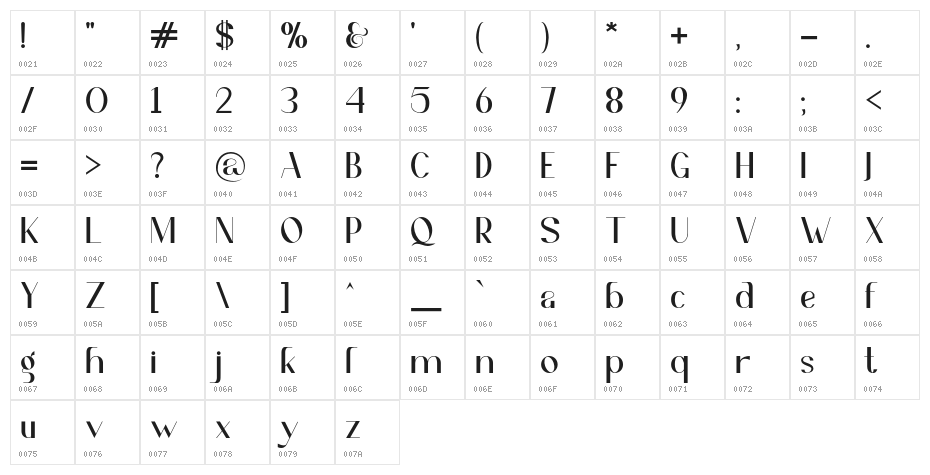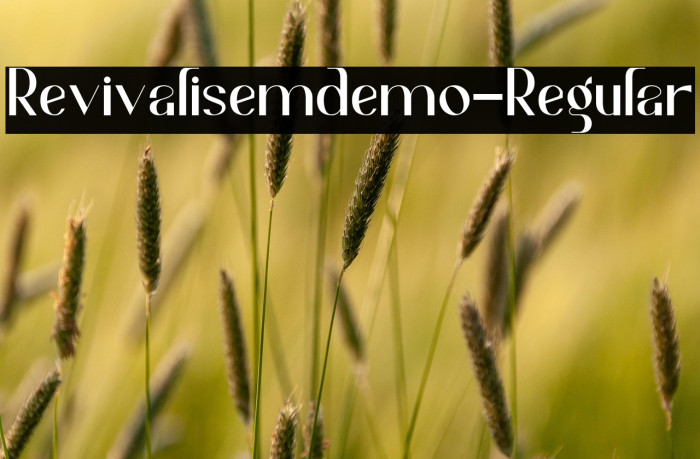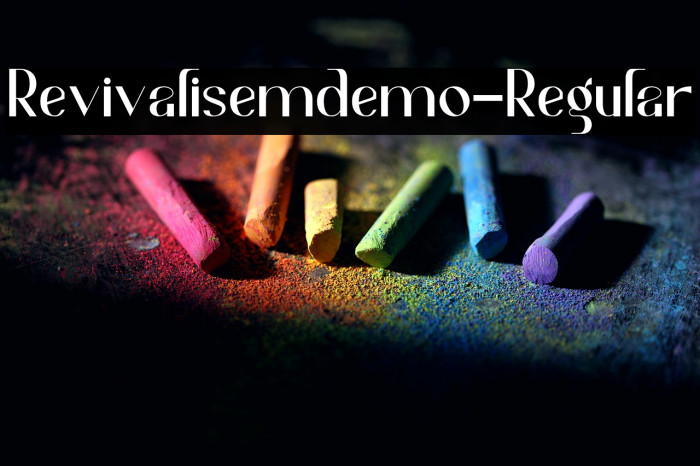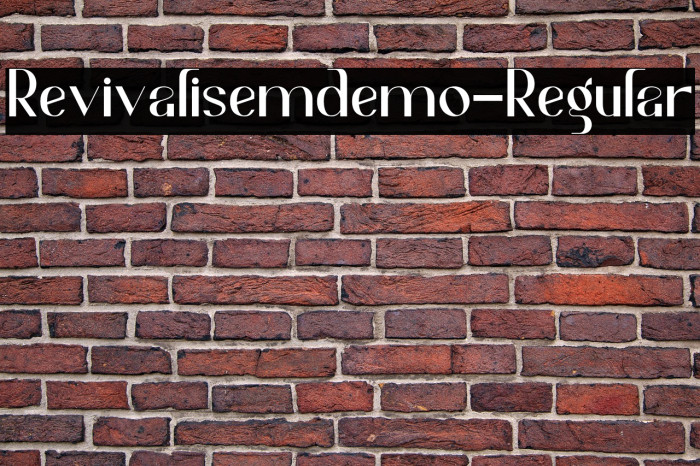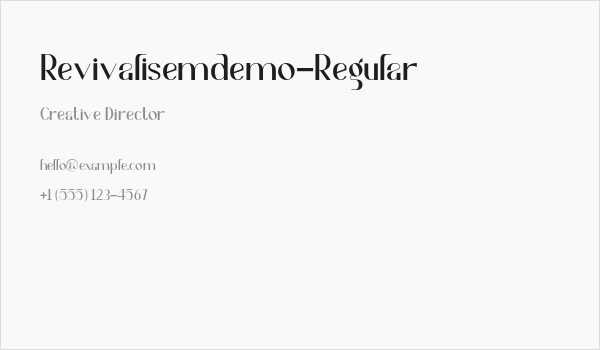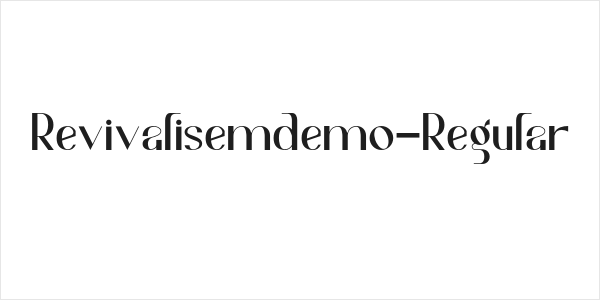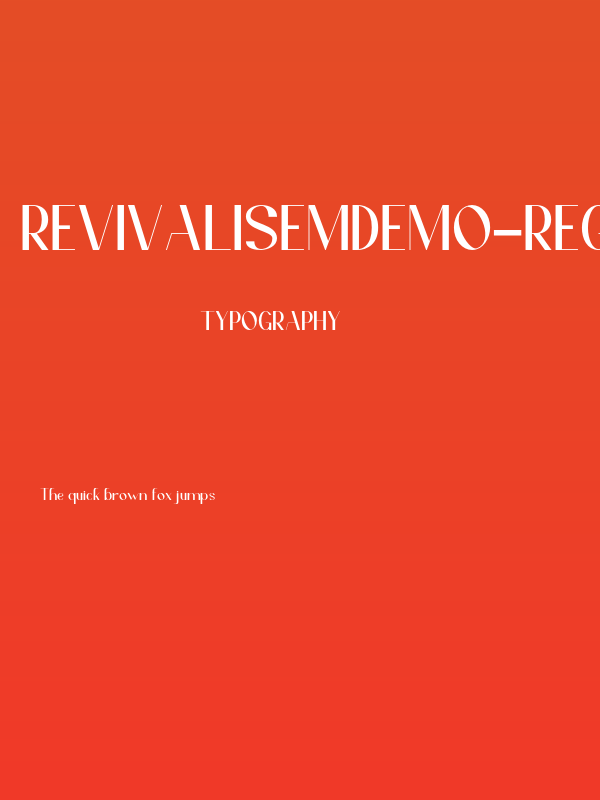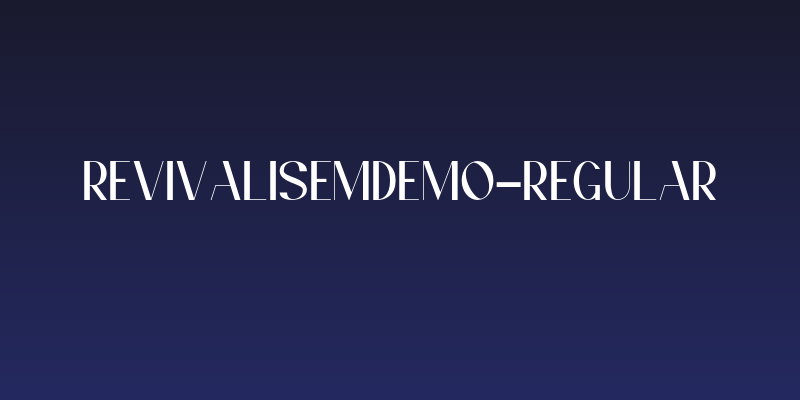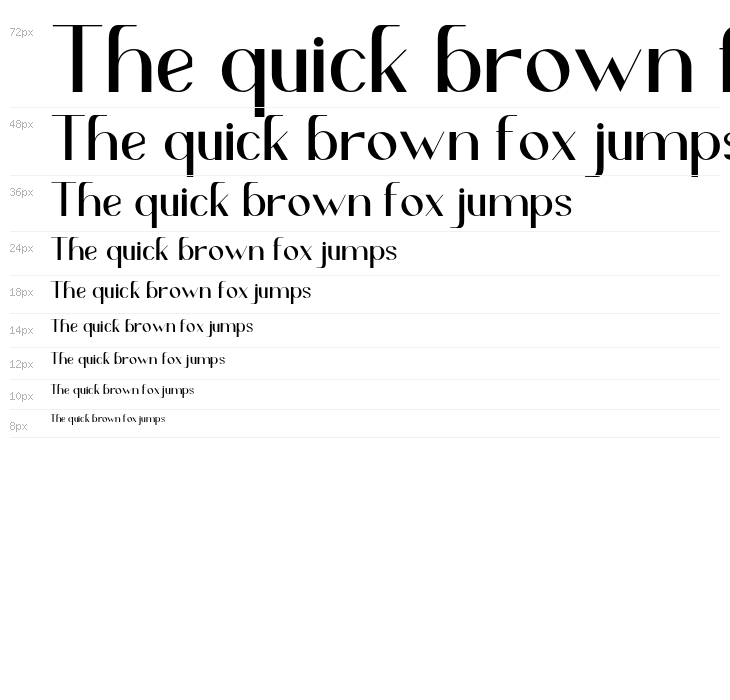
Revivalisemdemo-Regular Font
Revivalisemdemo-Regular Description
This font features a modern and elegant design with a high contrast between thick and thin strokes, giving it a sophisticated and stylish appearance. The uppercase letters are tall and slender, while the lowercase letters maintain a consistent flow with unique curves and angles. The numerals are bold and clear, ensuring readability. Special characters are distinct and well-crafted, adding to the font's versatility. The overall aesthetic is both contemporary and timeless, making it suitable for a variety of design applications.
| Use Case | Headlines, Logos, Editorial design |
| Proposed Projects | Ideal for luxury branding, editorial design, fashion magazines, and high-end product packaging. |